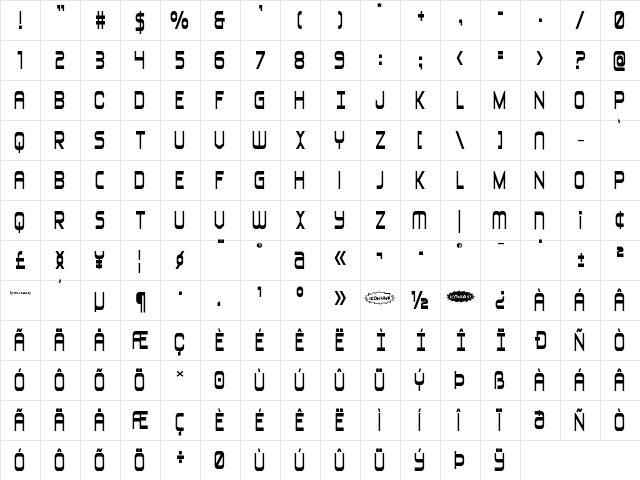
Blizzard Shaft Expanded Regular
Design Context for Blizzard Shaft Expanded Typeface
Blizzard Shaft Expanded offers clean, dependable letterforms without strong stylistic allegiance, making it a practical choice for designers who need flexibility.